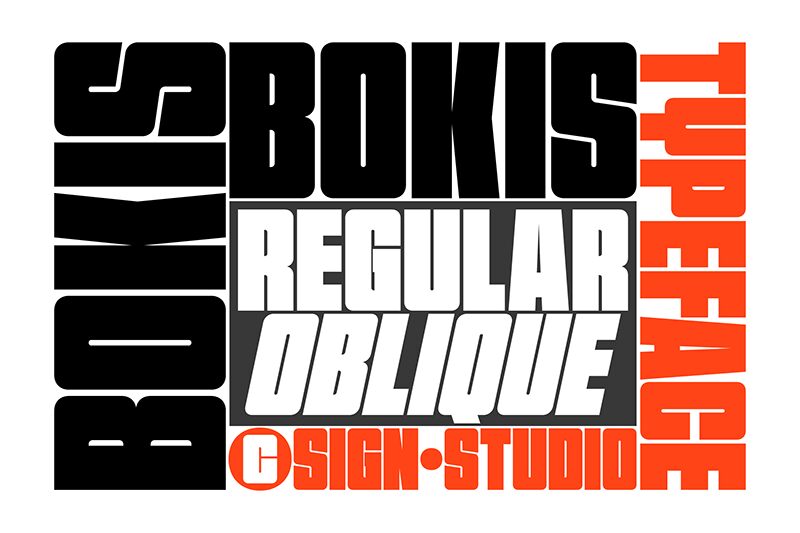
Bokis, a cutting-edge creation by Sign Studio, is a techno sans serif font that exudes confidence and modernity. With its extra-bold weight and condensed width, Bokis is perfect for projects that demand a sleek and futuristic aesthetic. Ideal for website headers, tech-related branding, or bold headlines in magazines, this font effortlessly grabs attention with its clean lines and contemporary vibe. Whether you're designing an edgy technology blog or a forward-thinking advertising campaign, Bokis will make your content stand out from the crowd with its striking presence.
Bokis
Sign Studio